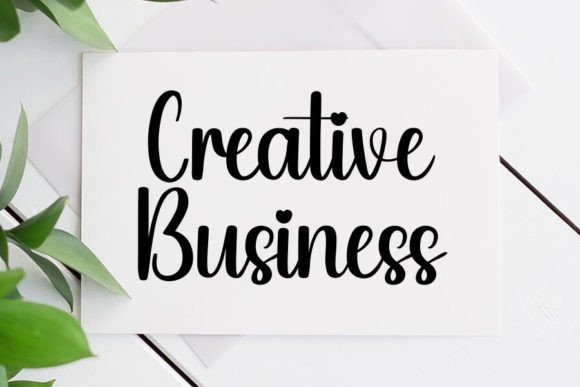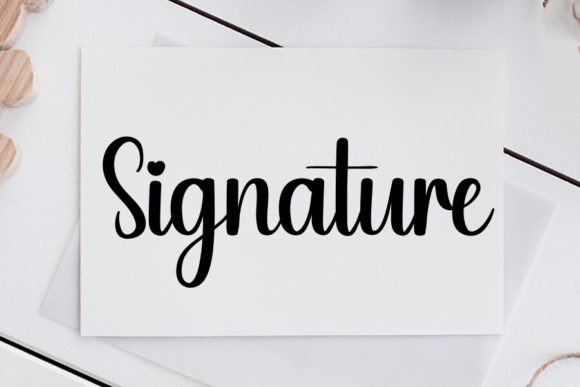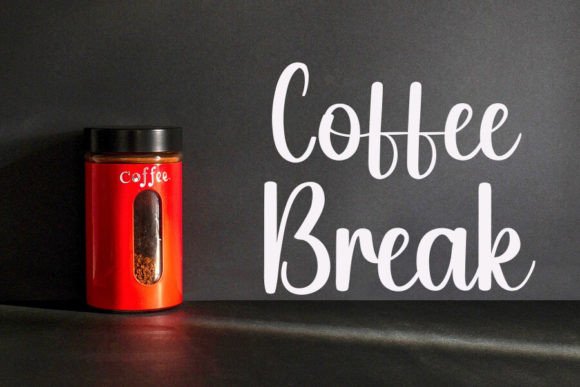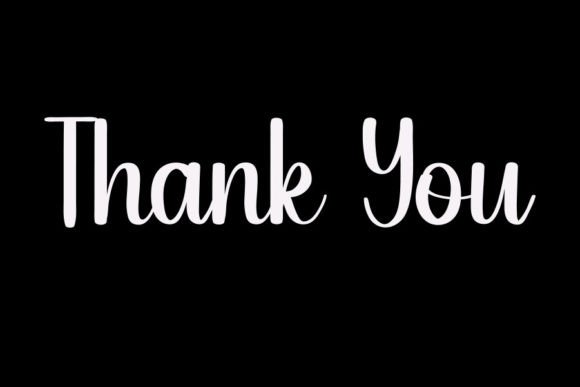
Unleash Elegance with Black Pastel Font: The Ultimate Guide
Are you on the hunt for a font that exudes charm and sophistication? Look no further than the Black Pastel Font. This stunning script font is a stylish homage to classic calligraphy, making it the perfect addition to any design project. From branding and titles to wedding designs, invitations, signs, logos, labels, and more, Black Pastel is sure to elevate your work to the highest level.
The Charm of Black Pastel Font
Black Pastel feels equally charming and elegant, making it a versatile font for a wide range of design applications. Its unique blend of classic calligraphy and modern flair makes it stand out from the crowd. Whether you’re a designer, crafty DIY enthusiast, or simply someone who appreciates beautiful typography, Black Pastel is sure to captivate your audience.
What Makes Black Pastel Font So Special?
So, what sets Black Pastel apart from other fonts? Here are just a few features that make it a standout:
- Elegant Script Style: Black Pastel boasts a beautiful, flowing script style that’s perfect for creating sophisticated and eye-catching designs.
- Classic Calligraphy Inspiration: This font draws inspiration from traditional calligraphy, giving it a timeless and refined feel.
- Versatile: Black Pastel is suitable for a wide range of design projects, from formal events to branding and advertising.
- Easy to Read: Despite its elegant and cursive nature, Black Pastel is surprisingly easy to read, making it perfect for both headings and body text.
How to Use Black Pastel Font in Your Designs
Now that we’ve covered the basics of Black Pastel, let’s dive into some practical applications for this stunning font. Here are a few ideas to get you started:
Wedding Designs
Black Pastel is a dream come true for wedding designers. Use it to create beautiful wedding invitations, save-the-date cards, and even wedding signage. Its elegant script style and classic calligraphy inspiration make it perfect for formal wedding designs.
Branding and Logos
Want to add a touch of sophistication to your brand? Black Pastel is an excellent choice for logos, business cards, and other branding materials. Its unique blend of classic and modern styles will help your brand stand out from the competition.
Signs and Labels
Black Pastel is also perfect for creating eye-catching signs and labels. Use it to create custom signs for events, product labels, or even restaurant menus. Its elegant script style and easy readability make it a great choice for a wide range of applications.
Tips for Pairing Black Pastel Font with Other Fonts
While Black Pastel is stunning on its own, it can also be paired with other fonts to create a unique and visually appealing design. Here are a few tips for pairing Black Pastel with other fonts:
- Pair with a Sans-Serif Font: Pairing Black Pastel with a sans-serif font like Arial or Helvetica creates a beautiful contrast between elegant script and modern simplicity.
- Combine with a Serif Font: Combining Black Pastel with a serif font like Times New Roman or Georgia adds depth and sophistication to your design.
- Experiment with Script Fonts: Don’t be afraid to pair Black Pastel with other script fonts to create a unique and eye-catching design.
In conclusion, Black Pastel Font is a stunning script font that’s perfect for designers and crafters looking to add a touch of elegance and sophistication to their work. Its unique blend of classic calligraphy and modern flair makes it versatile and suitable for a wide range of design applications. Whether you’re creating wedding designs, branding materials, signs, or labels, Black Pastel is sure to elevate your work to the highest level.